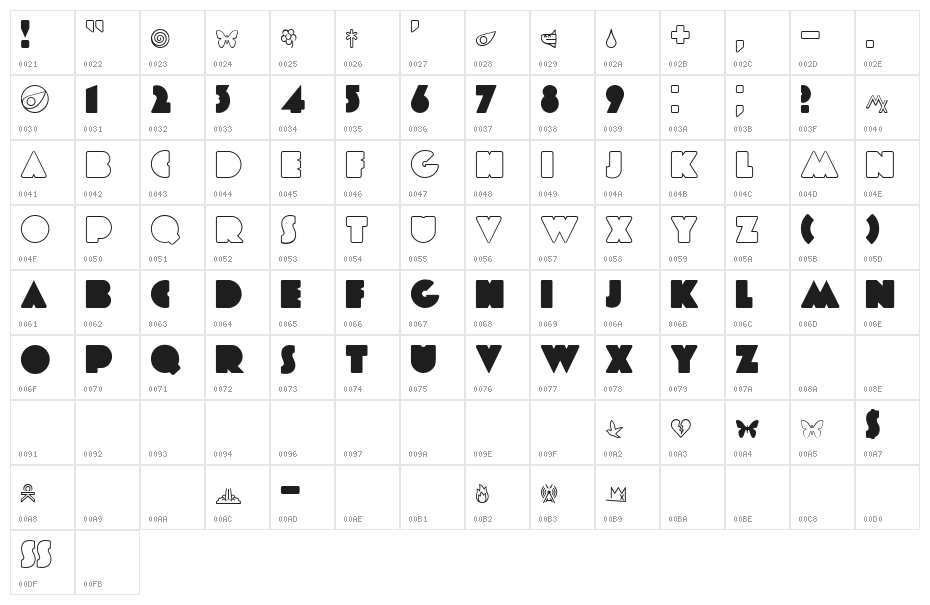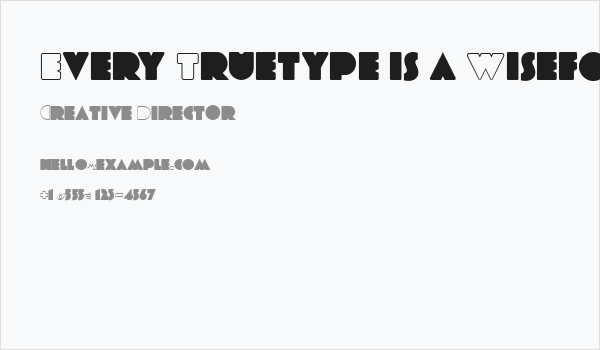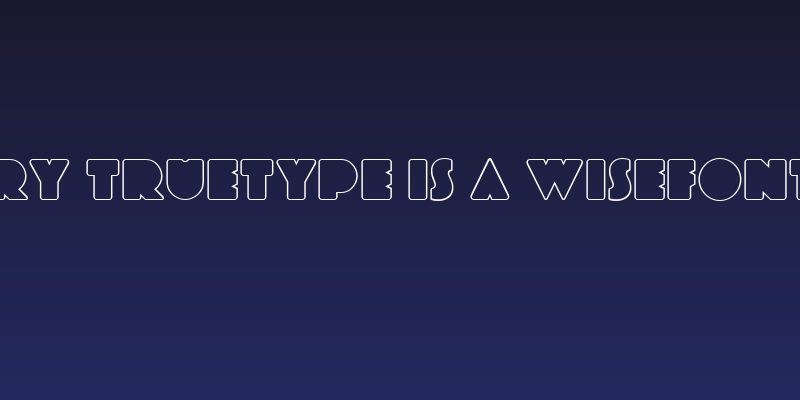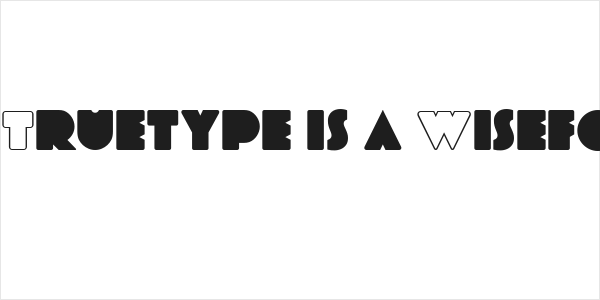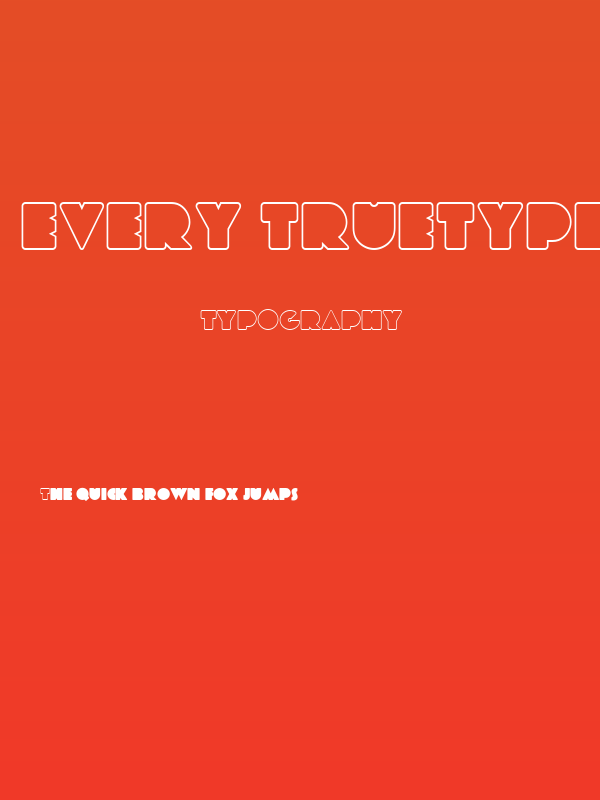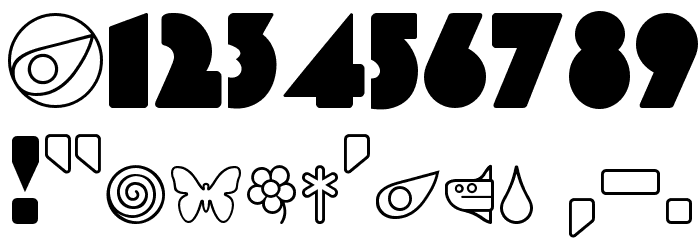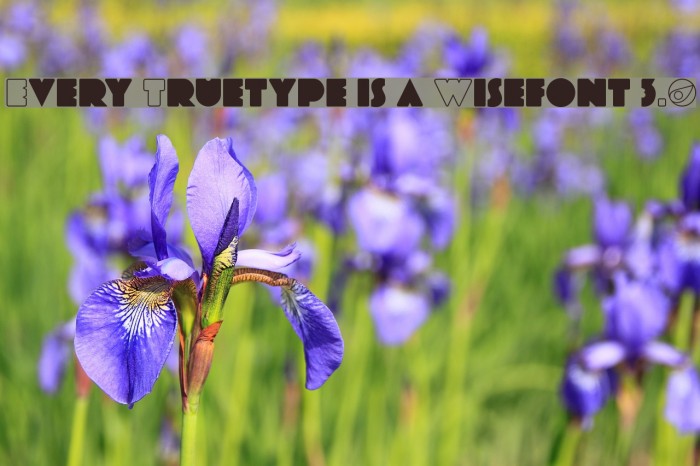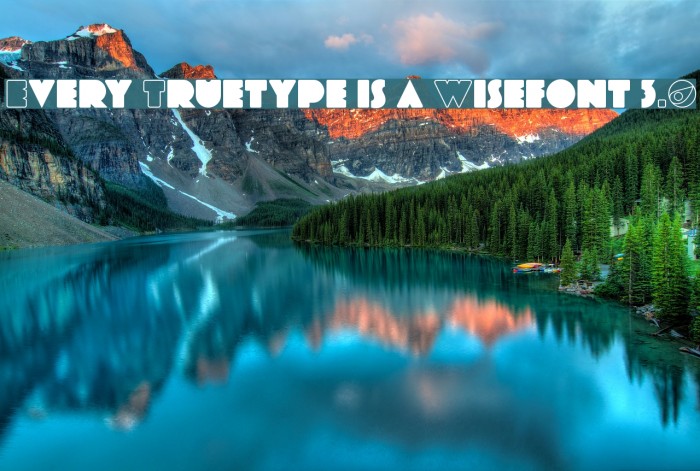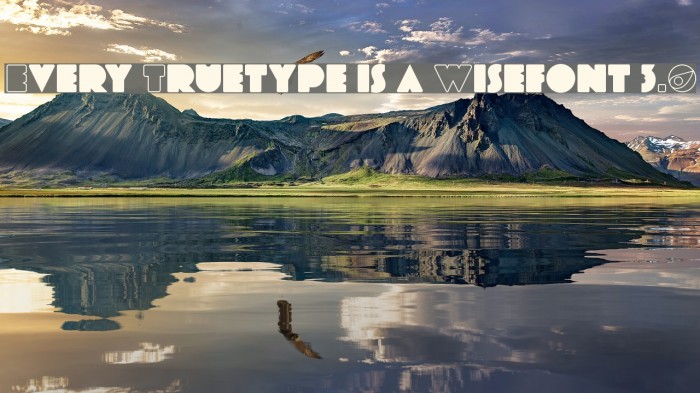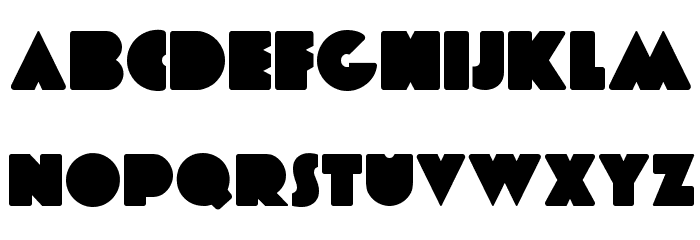
Every Truetype is a Wisefont 3.0 Font
Every Truetype is a Wisefont 3.0 Description
This font features a bold and geometric design with a playful and modern aesthetic. The uppercase letters are characterized by thick, uniform strokes and a blocky appearance, giving them a strong presence. The numbers and special characters maintain this bold style, with unique and creative shapes that add a whimsical touch. The font's overall look is eye-catching and suitable for projects that require a statement piece. Its geometric nature and solid forms make it ideal for use in headlines, logos, and branding materials where a modern and impactful style is desired.
| Proposed Projects | Ideal for headlines, logos, branding materials, and any design needing a bold, modern touch. |